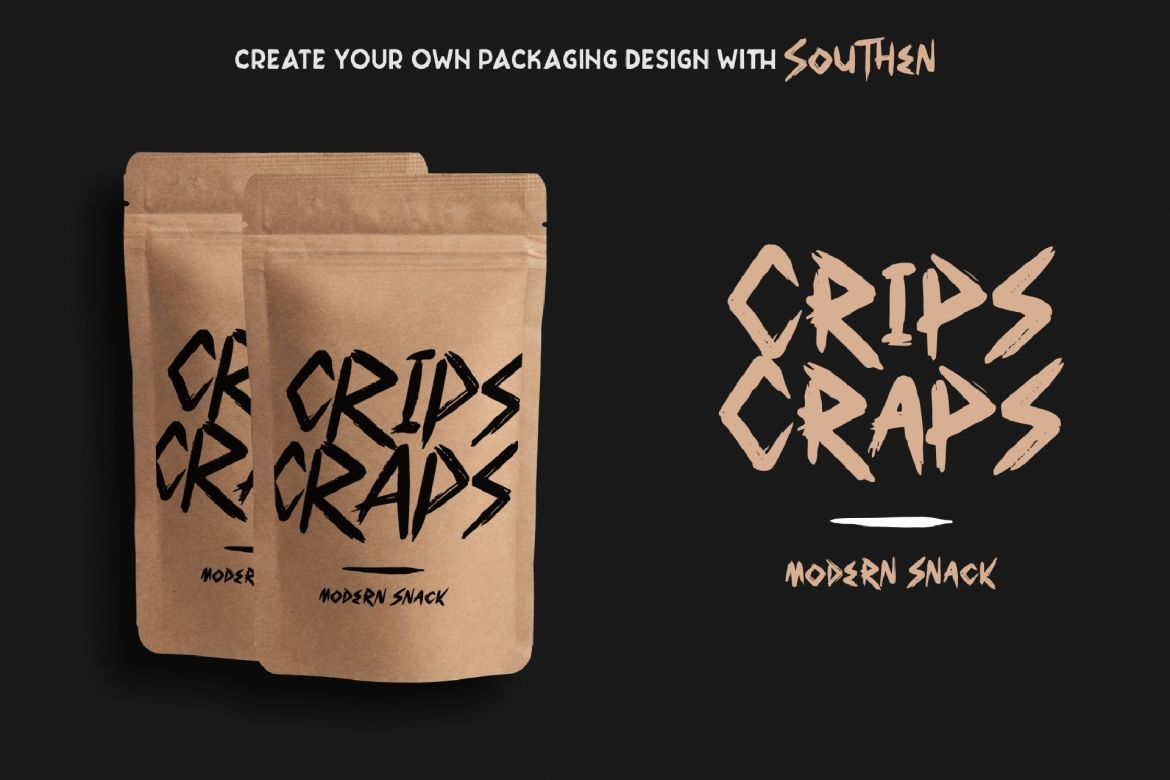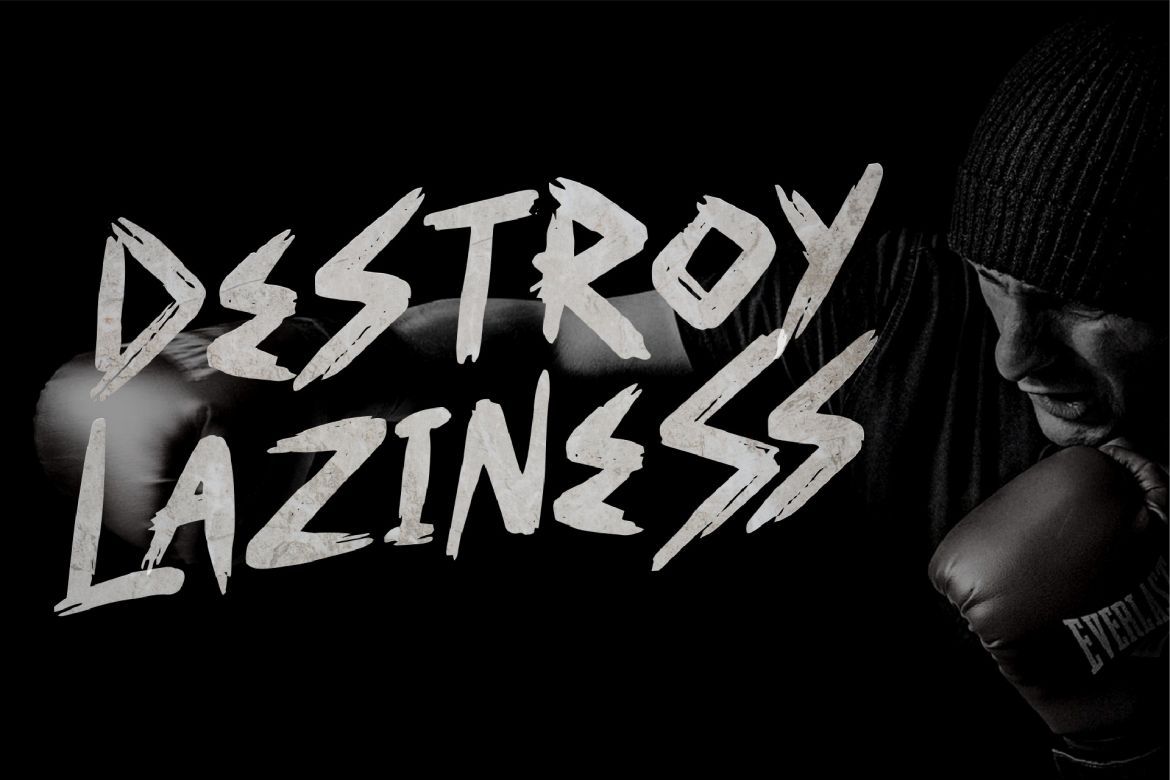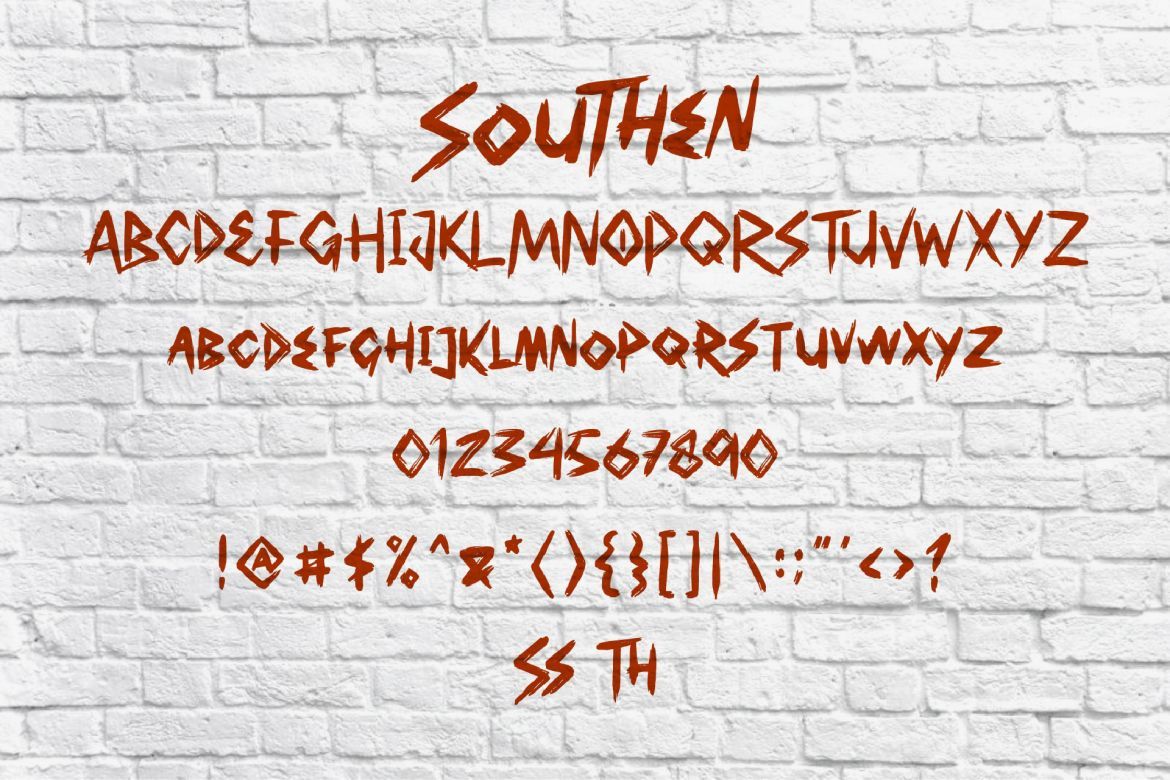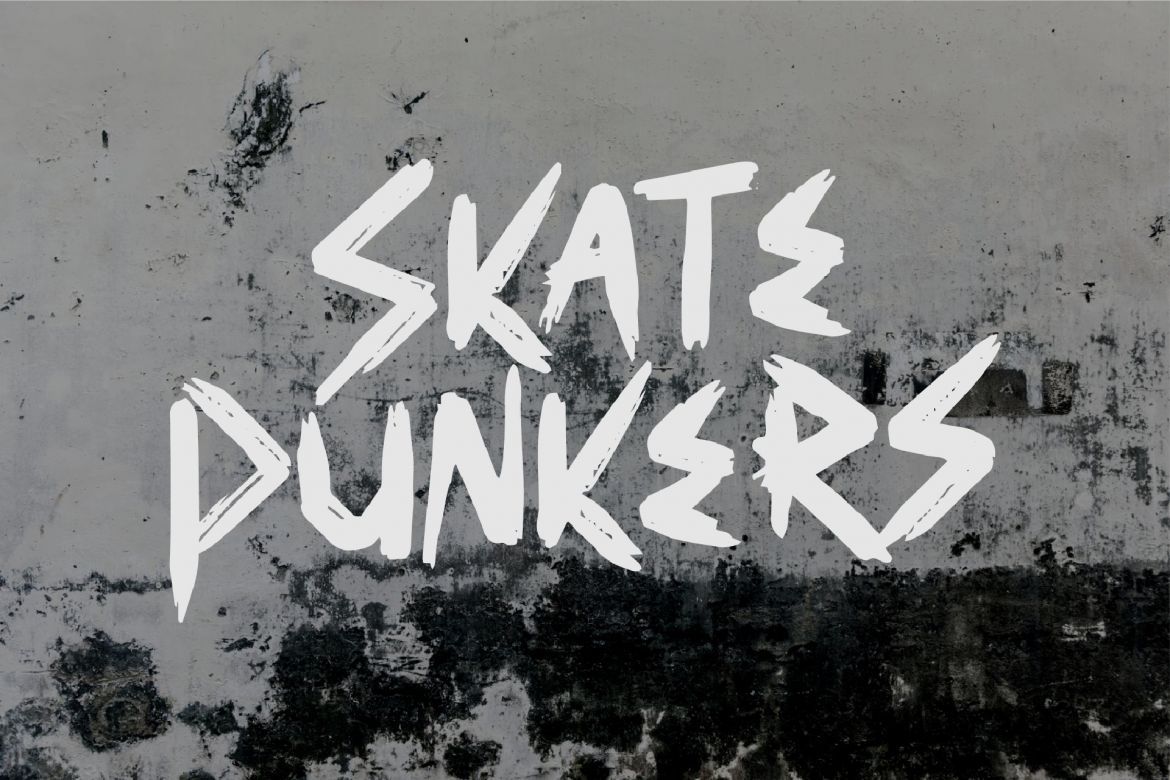
Southen - Handbrush Fonts
Welcome to part of Northen fonts This is SOUTHEN
SOUTHEN it's a part of NORTHEN and EASTTALIA. Combines attractive curves with a fresh urban edge; delivering a stylish script which is guaranteed to add an eye-catching appeal to your logo designs, brand imagery, handwritten quotes, product packaging, merchandise & social media posts
• awesome for poster, branding, label, or headline on the magazine
• detailed dry brush
• extra swash